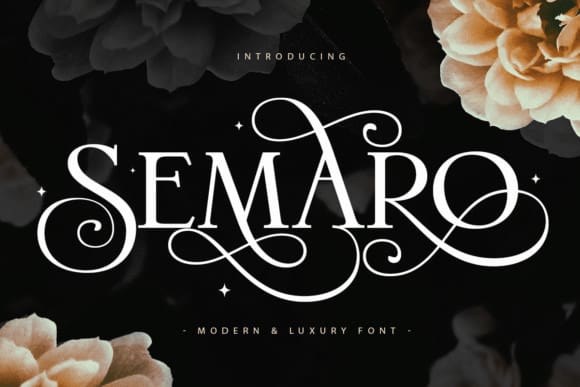
Semaro Font
Semaro Font is an organic and beautiful serif font, featuring lovely ornaments. No matter the topic, this font will be an incredible asset to your fonts’ library, as it has the potential to elevate any creation.